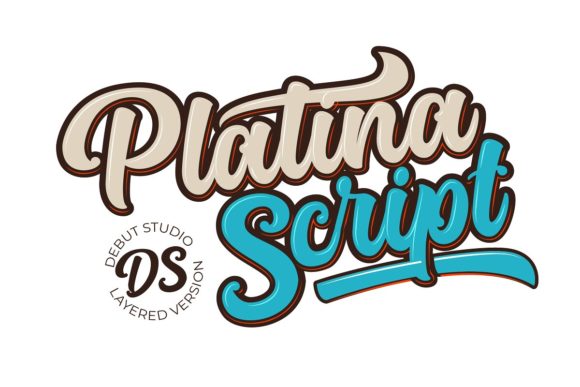
Behold Platina Script Font, the script typeface that captivates with its timeless elegance and captivating charm. A creation of Debut Studio, Platina is more than just a font; it's an artistic masterpiece that transforms your designs into visually stunning creations.
Journey back in time with Platina, where the allure of retro intertwines with the sophistication of modernity. This bold script font is not just a collection of letters; it's a gateway to a bygone era, where every word carries the weight of history and the promise of adventure.
Unleash your creativity with Platina, the ultimate font for quote designs. Each character, meticulously crafted with love and attention to detail, dances across the page, capturing the essence of your words and transforming them into works of art.
With Platina, you'll discover a font that's as versatile as it is beautiful. Whether you're crafting wedding invitations, designing posters, creating social media graphics, or simply adding a touch of sophistication to your personal projects, Platina is your perfect companion.
Embrace the nostalgia of the past with Platina, a font that breathes new life into your designs. Let your creativity soar, explore uncharted territories, and leave a lasting impression on your audience. Platina is not just a font; it's an experience that will transport you to a world of timeless beauty and endless possibilities.